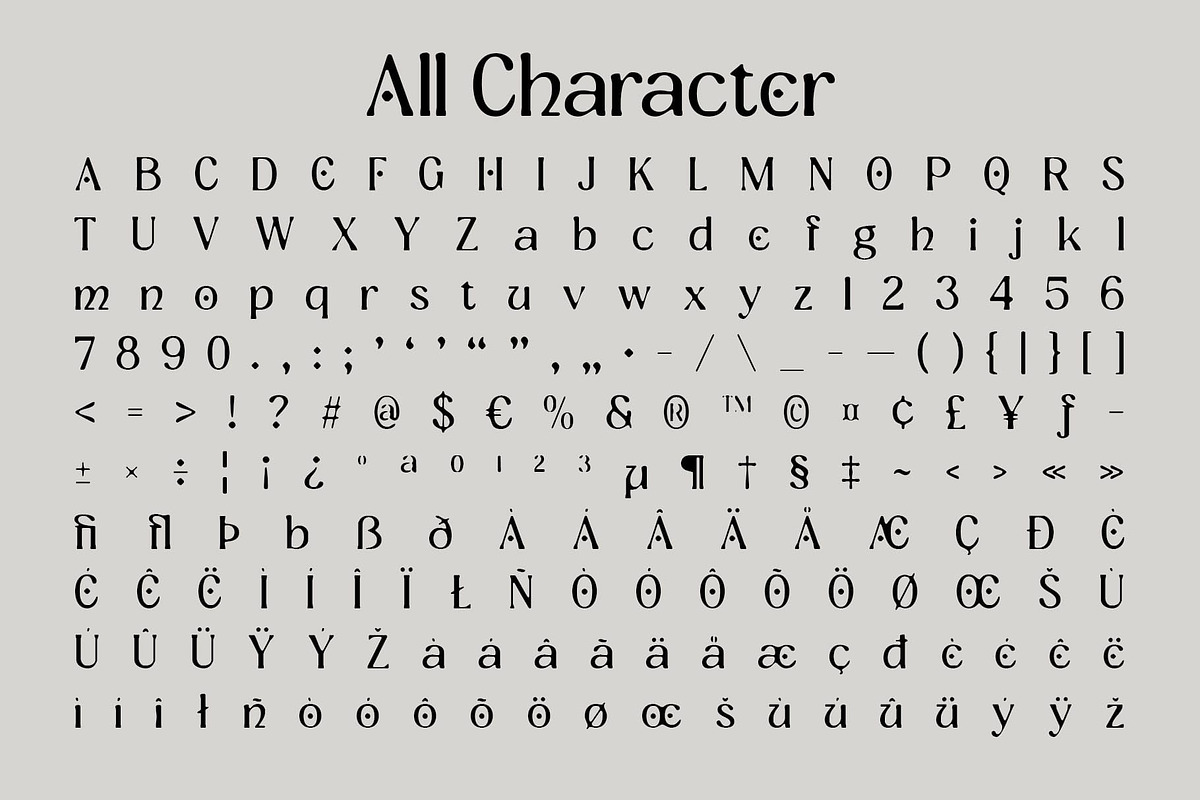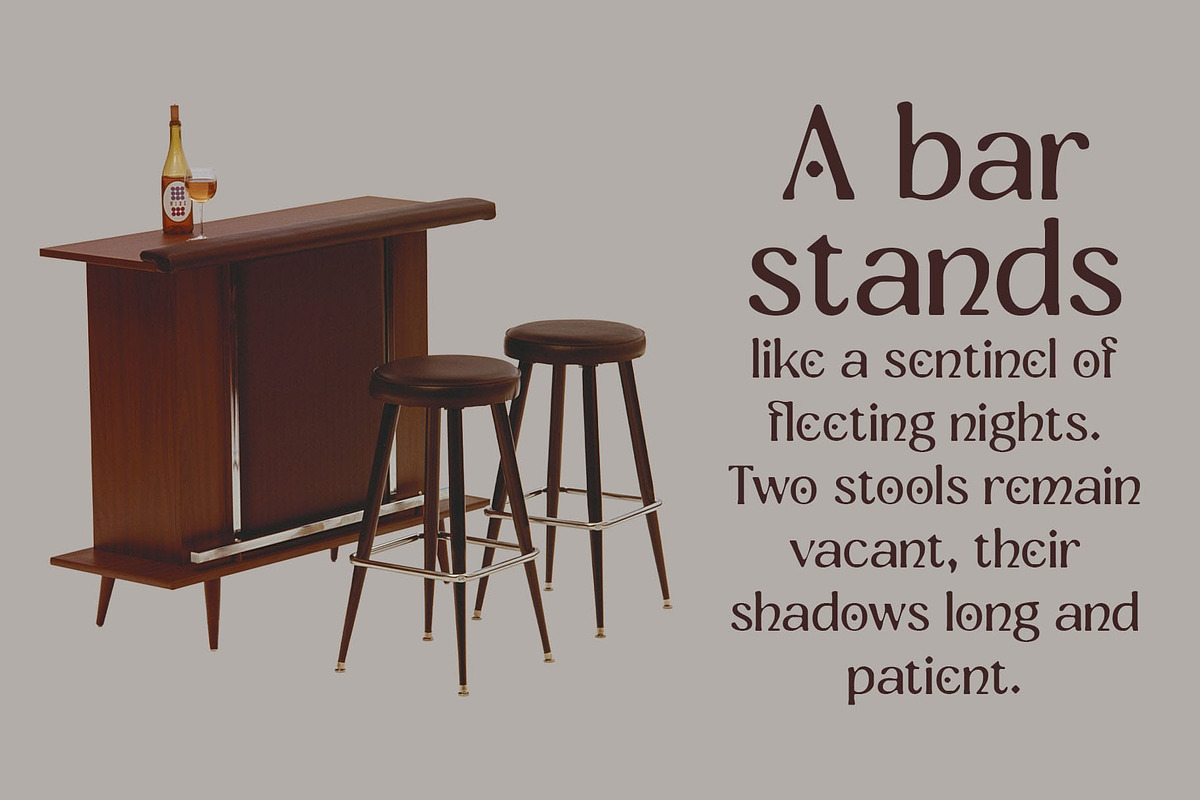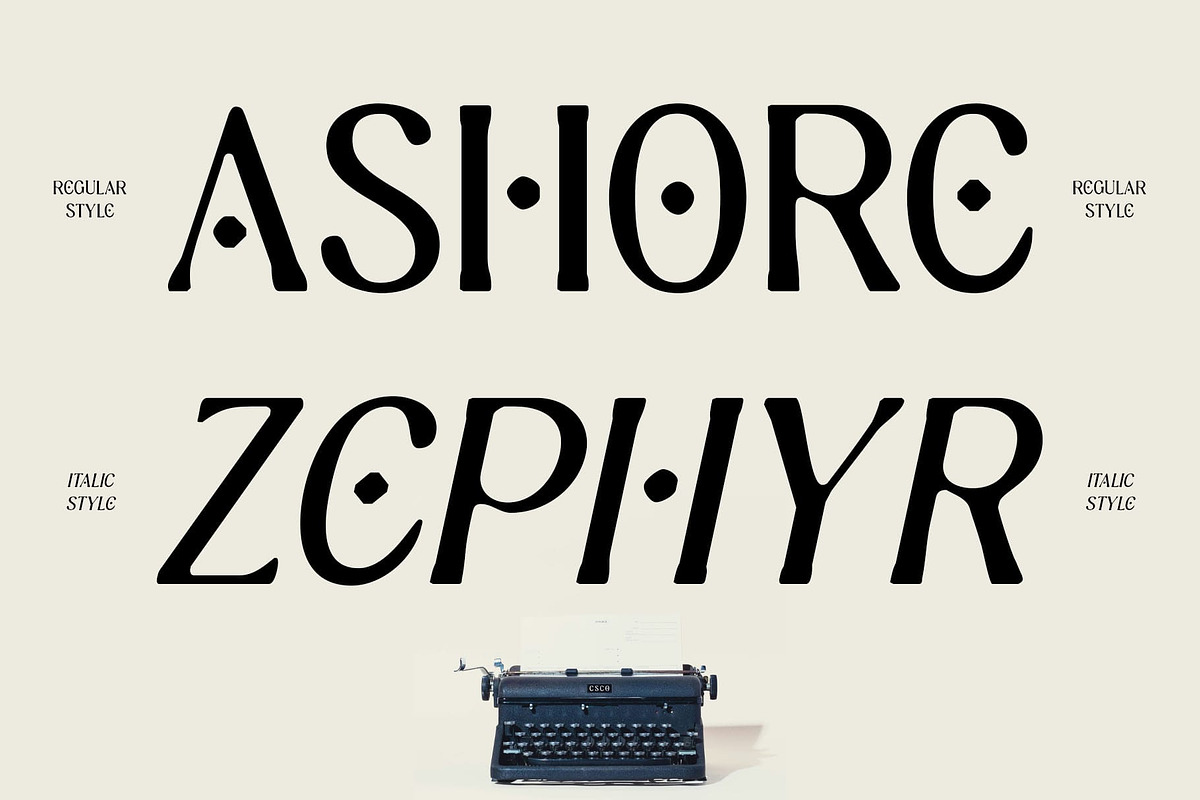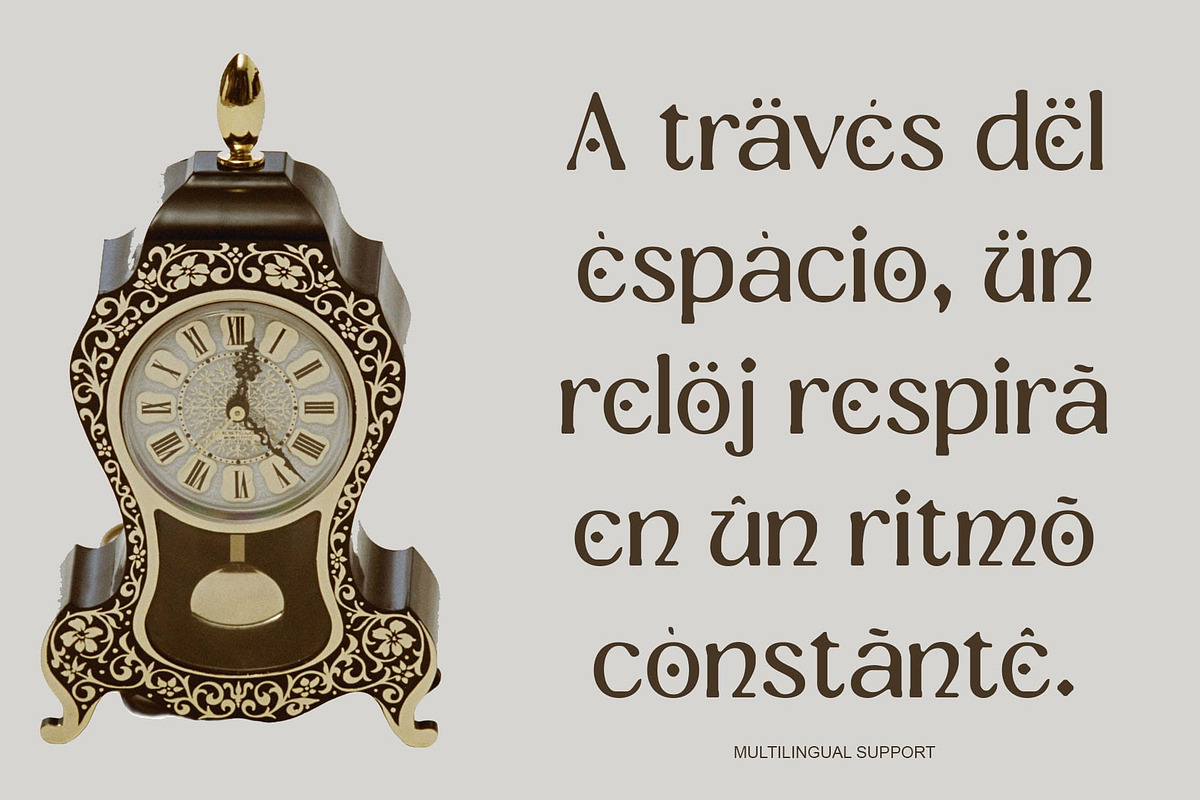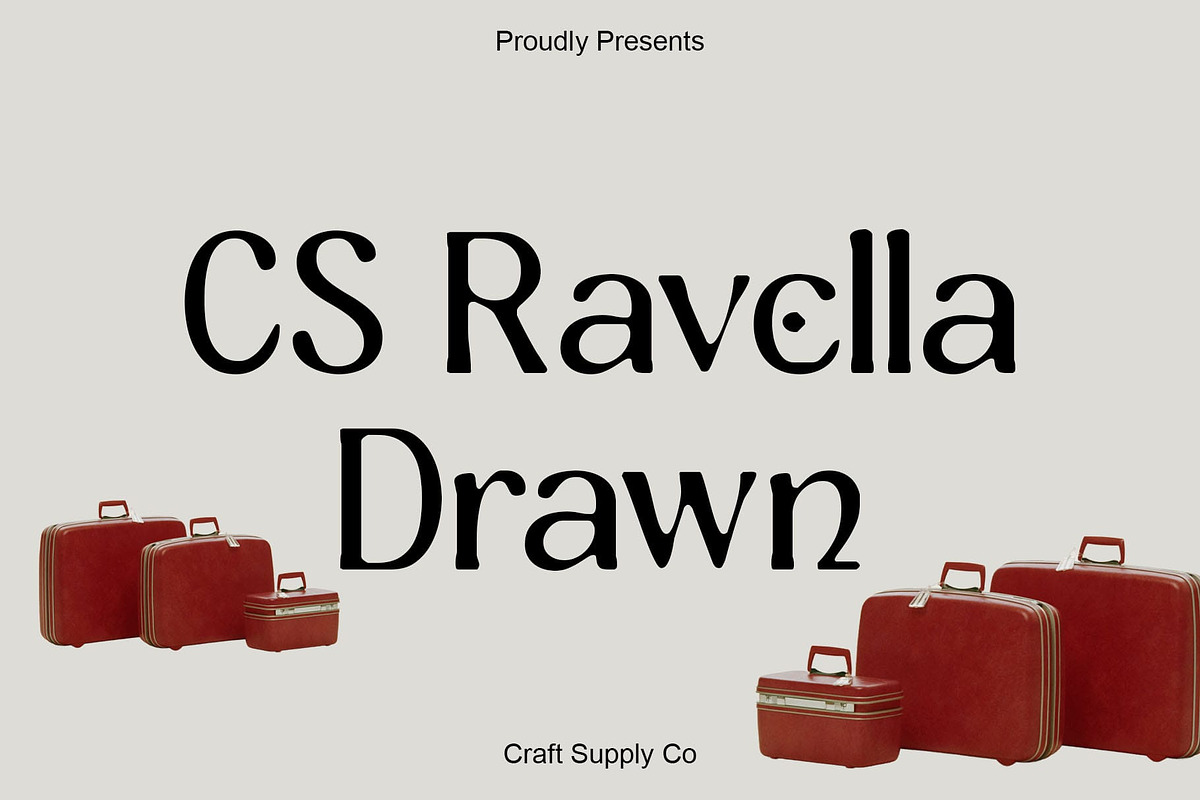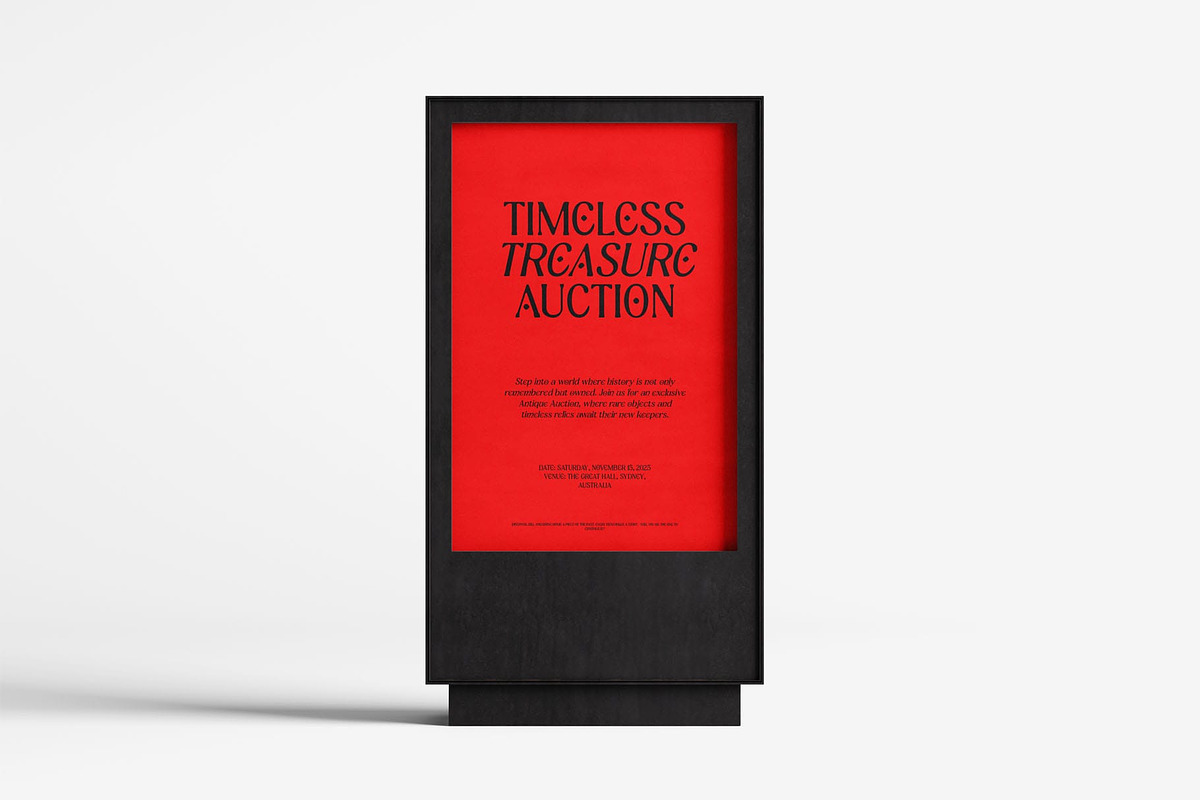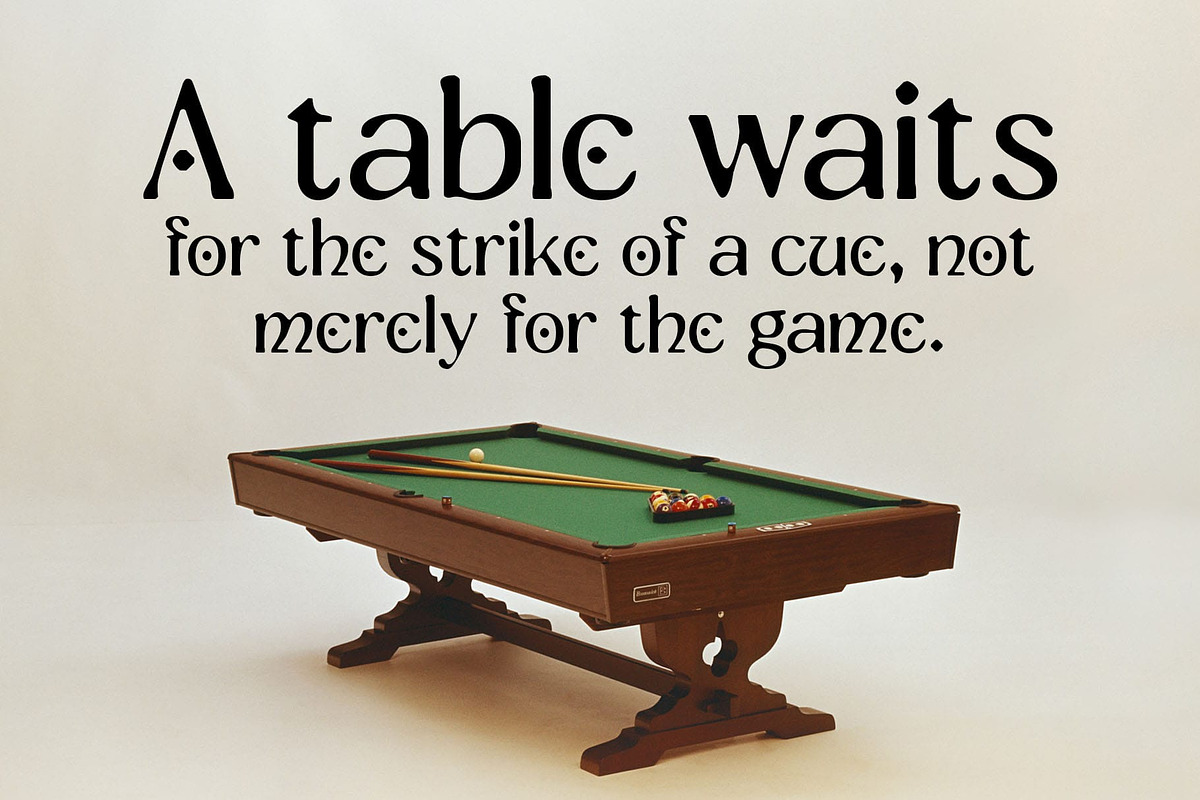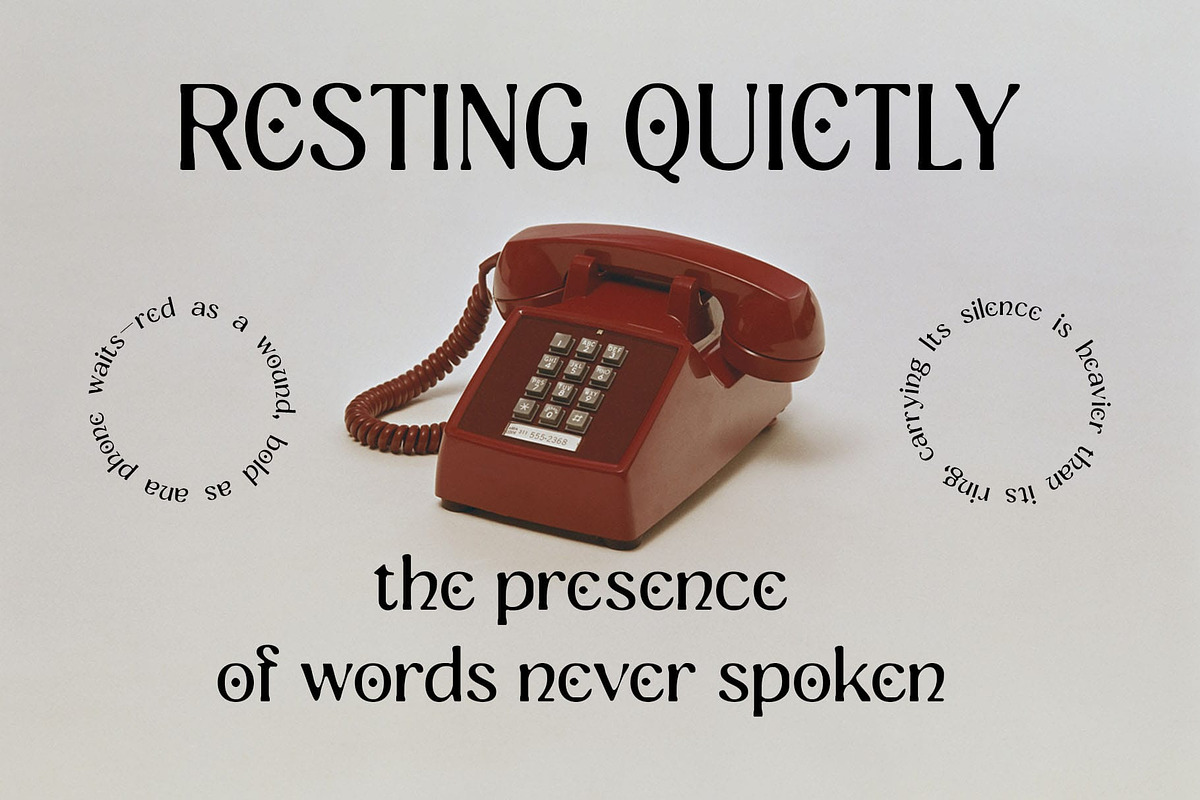
CS Ravella Drawn
CS Ravella Drawn – Uncial-Style Serif with Artistic Heritage: Where History Meets Handmade Expression
Uncial-Style Serif Display Font This font takes inspiration from ancient manuscripts, reviving the beauty of uncial-style serif forms. Its rounded, historic letterforms echo centuries of tradition, bringing a timeless sense of storytelling and heritage to any design.
Hand-Drawn Artistic Finish What sets this font apart is its hand-drawn finish. The subtle imperfections and artisanal detailing enhance its authenticity, giving each character warmth, depth, and individuality perfect for projects that demand both historical accuracy and creative artistry.
Ideal for Classical and Luxury Design From book titles and editorial layouts to luxury branding and classical posters, this font adapts beautifully. Its historic roots lend credibility and gravitas, while its drawn charm ensures a distinctive, memorable presence across both print and digital formats.
Tradition with Contemporary Relevance This font bridges the gap between the past and present. While rooted in historical tradition, its expressive texture and modern usability make it versatile for contemporary design work, offering designers a font that feels both classic and refreshingly unique.